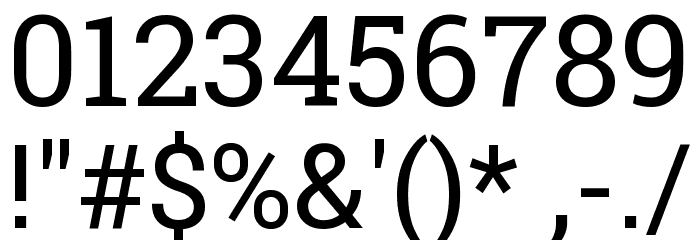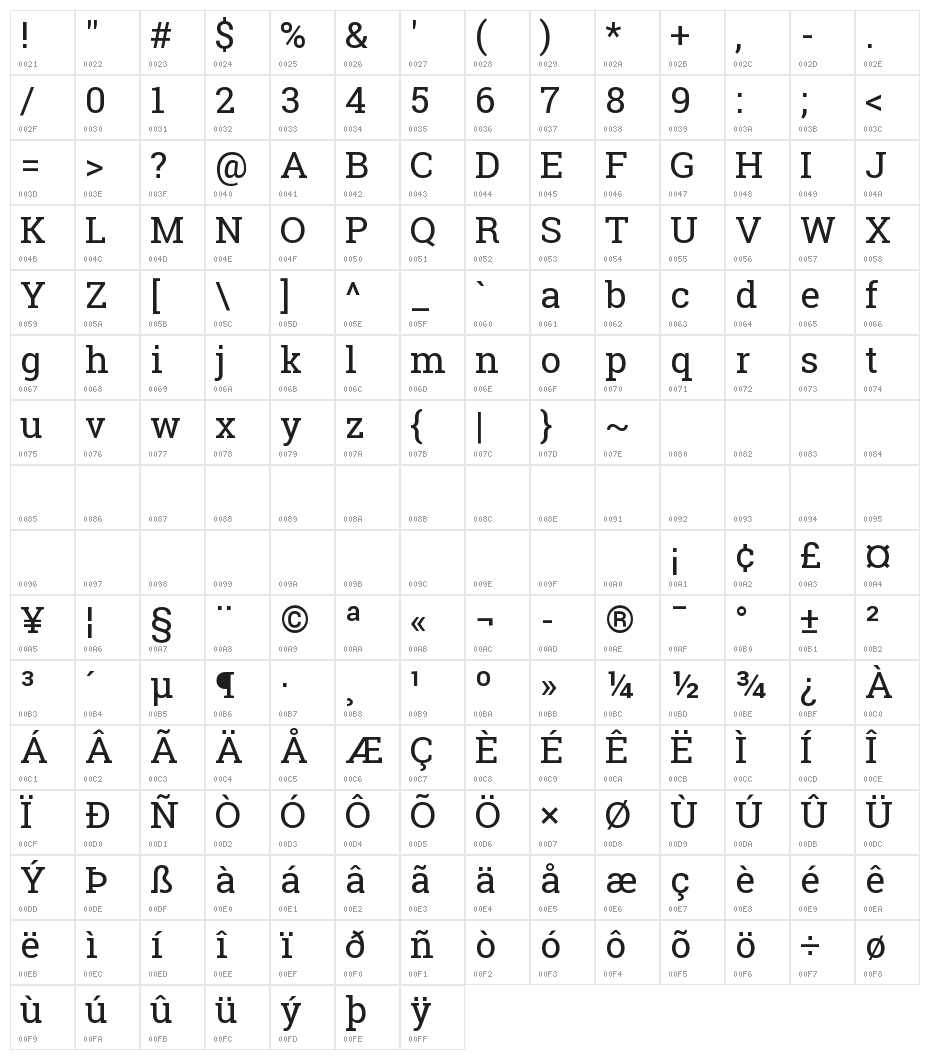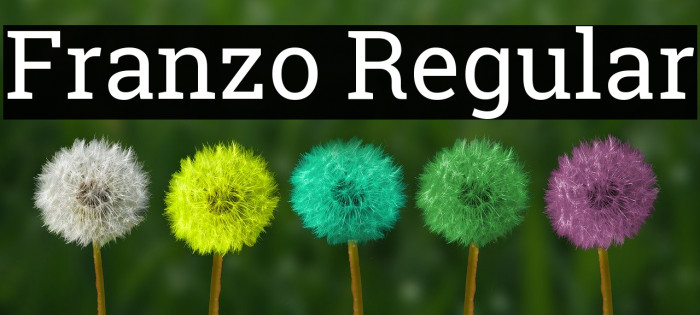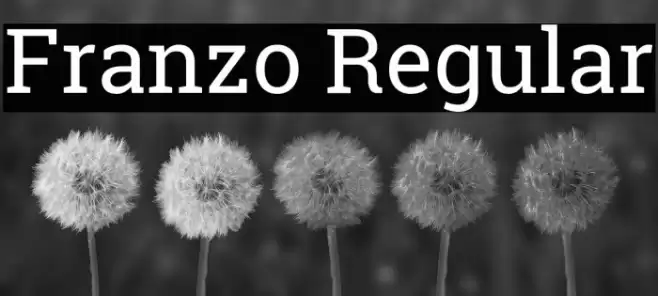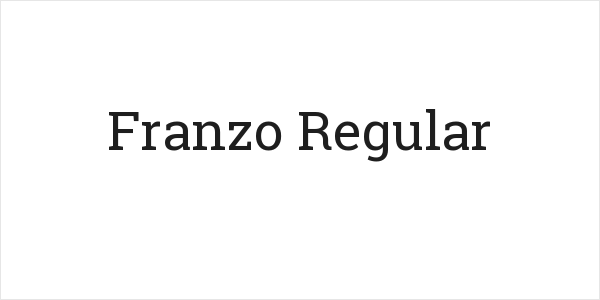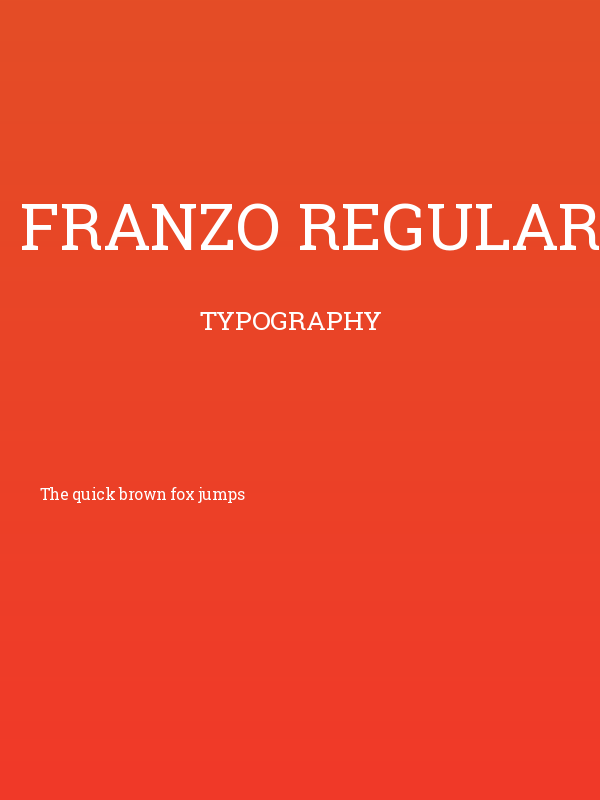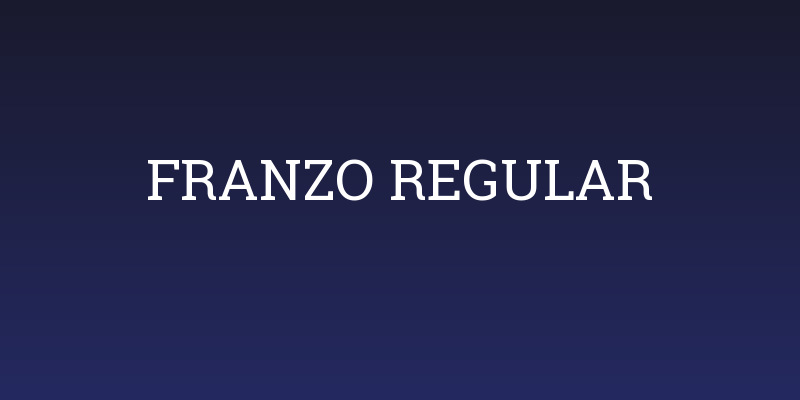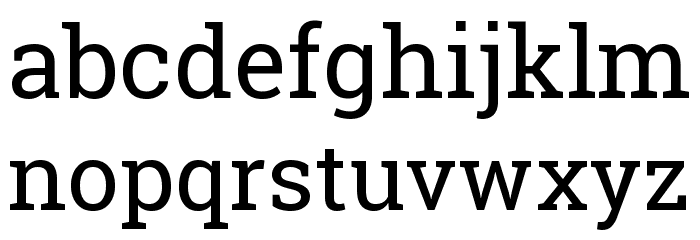
Franzo Regular Font
Franzo Regular Description
This font showcases a clean and modern serif style, characterized by its balanced proportions and clear readability. The uppercase letters are bold and assertive, while the lowercase letters maintain a consistent flow, enhancing legibility. The numerals are well-defined, offering a straightforward appearance. Special characters are crafted with precision, ensuring they complement the overall aesthetic. This font is versatile, suitable for both digital and print media, and can adapt to various design needs with its professional yet approachable look.